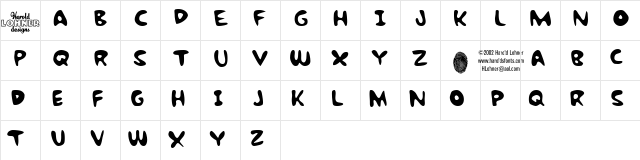
Bubble Gum RockBDemo Regular
Design Context for Bubble Gum RockBDemo Typeface
Bubble Gum RockBDemo has an approachable, lighthearted character — its loose, expressive forms are well-suited to children's content, casual branding, and fun-first design.
Font Pairing: Pairs well with a rounded or humanist sans for body copy, maintaining the friendly tone without relying on Bubble Gum RockBDemo to carry extended reading.
Pro Tip: Avoid using Bubble Gum RockBDemo for long passages of text — it works best for headlines, labels, and short calls to action.